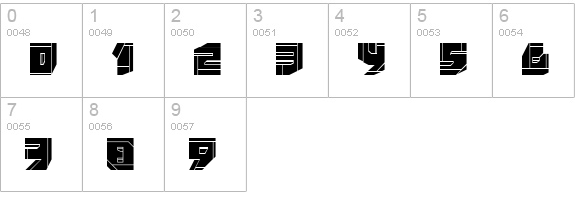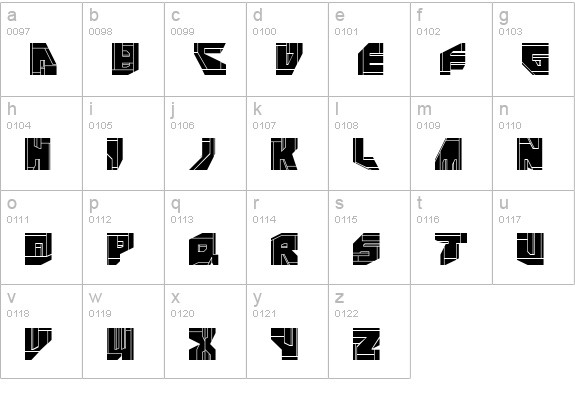
NeoPangaia Font Details
NeoPangaia is a captivating and versatile font that effortlessly combines modernism with a touch of elegance. It is the epitome of artistic craftsmanship, meticulously designed to enhance the visual appeal of any project it graces. This font is a true representation of the vibrant and ever-evolving world we live in, exuding a contemporary charm that is bound to captivate audiences. With its clean lines and balanced proportions, NeoPangaia offers a harmonious blend of sophistication and simplicity. Its carefully crafted letterforms exude a sense of fluidity and grace, making it ideal for a wide range of design projects. Whether it's a logo, branding material, editorial layout, or website design, NeoPangaia effortlessly adapts to any context, adding a touch of finesse and professionalism. One of the standout features of NeoPangaia is its versatility. It seamlessly transitions from bold and eye-catching headlines to sleek and legible body text, making it an excellent choice for both display purposes and long-form content. Its extensive character set ensures support for multiple languages, making it accessible to a global audience. And the best part? NeoPangaia is free! Yes, you read that right. This remarkable font is freely available to download at FontsMarket.com. It's a font that breaks barriers and empowers designers and creatives to bring their visions to life without any financial constraints. So why wait? Unleash your creativity and download NeoPangaia today to embark on a design journey that is bound to leave a lasting impression.